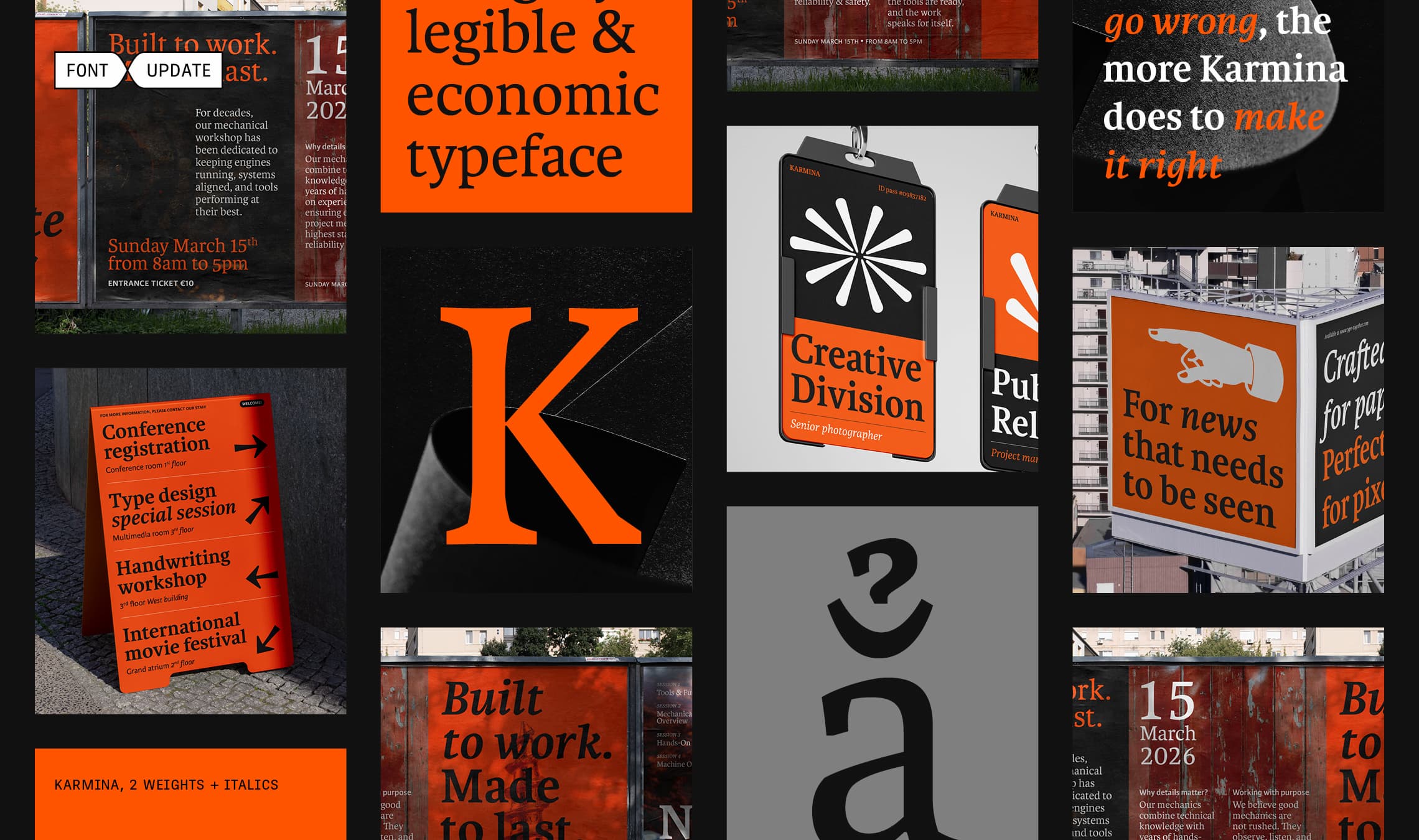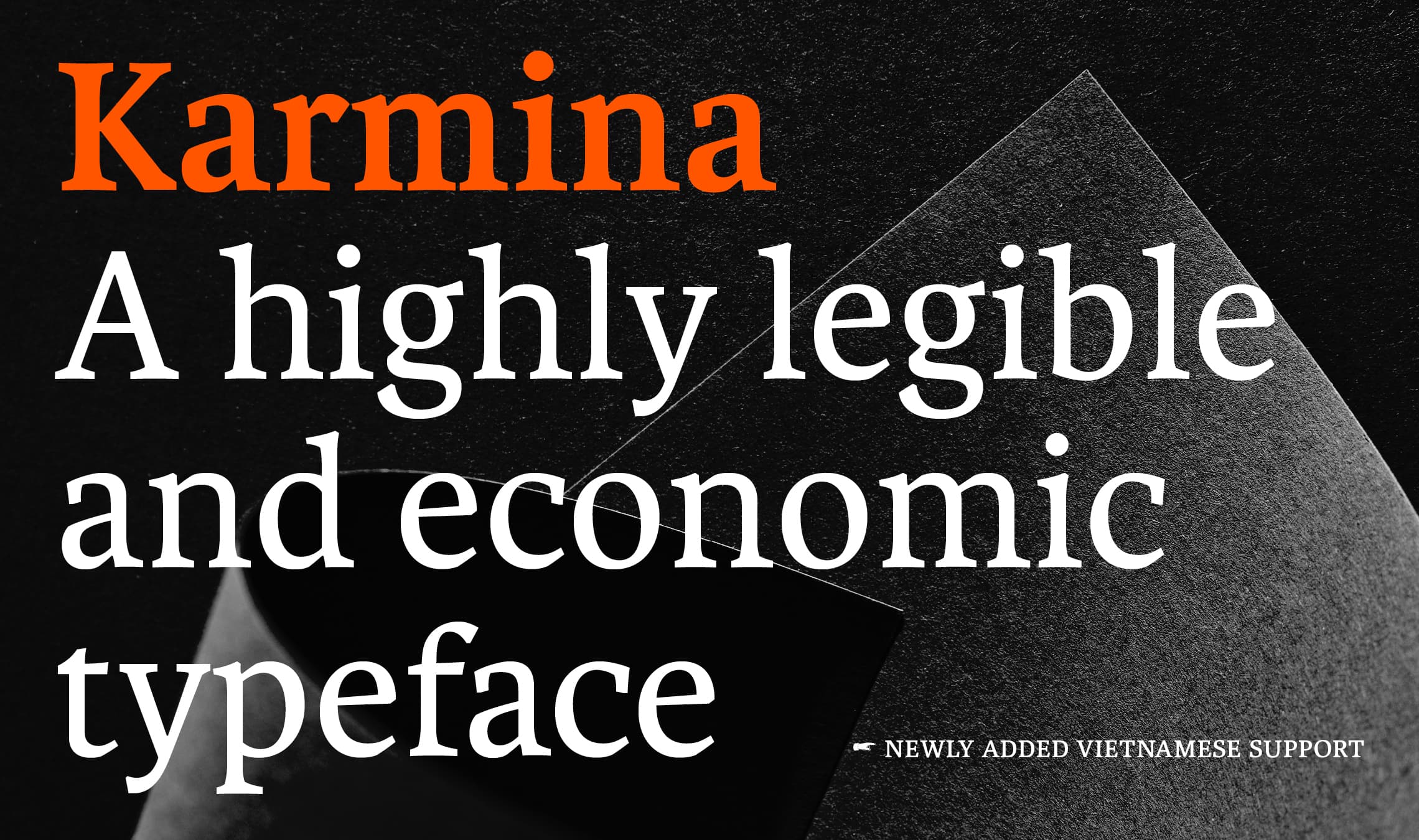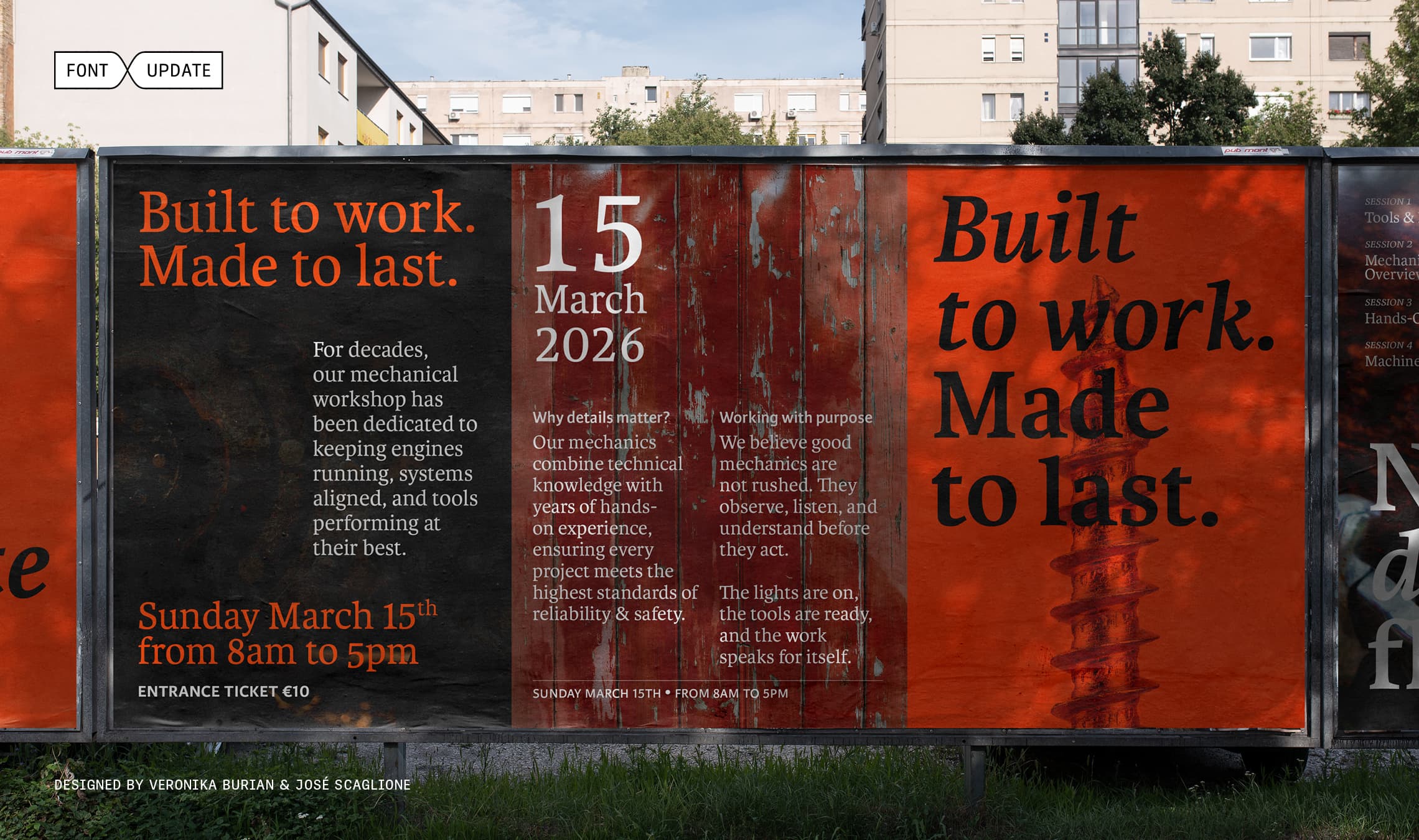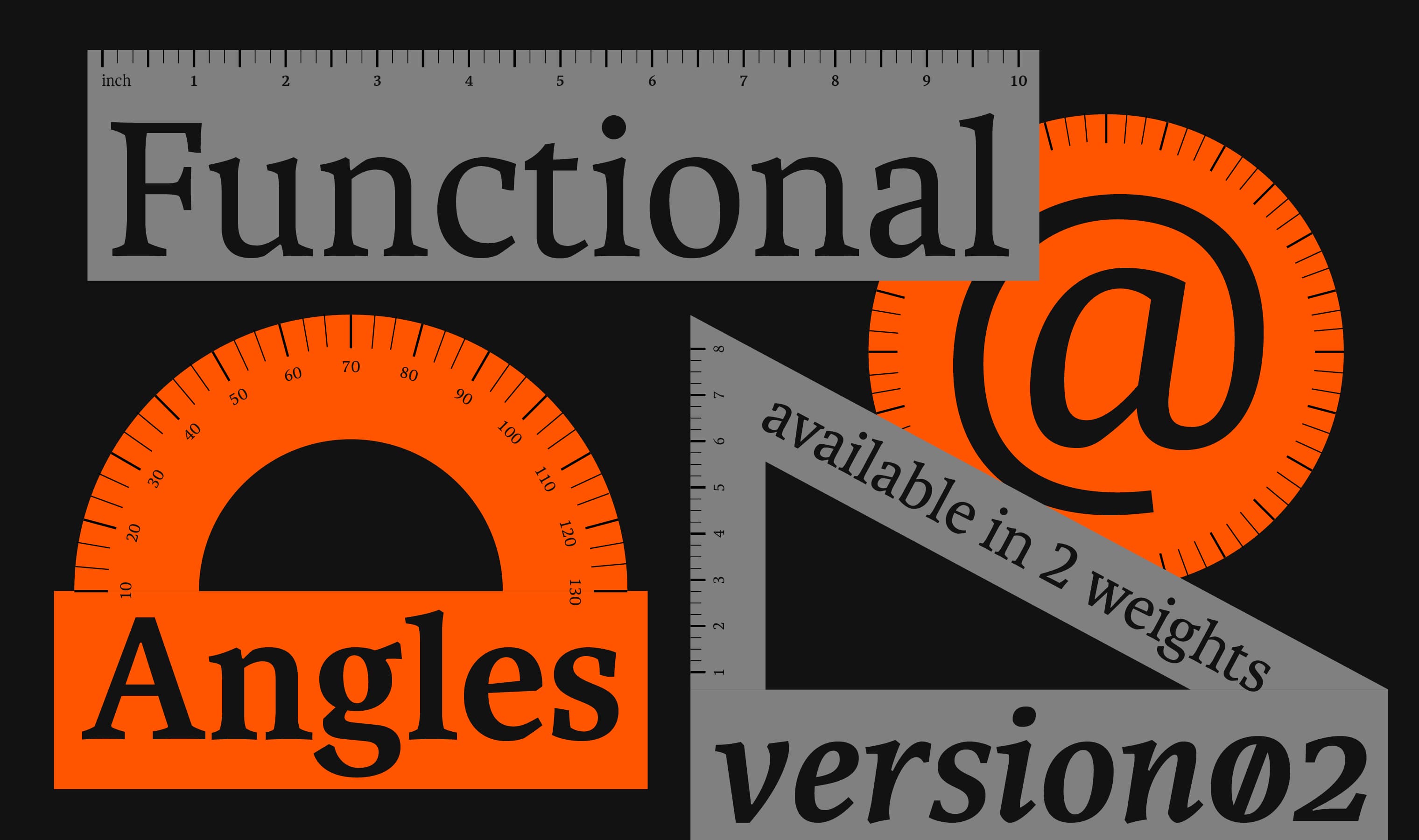
Karmina, fresh for 2026
Since its release in 2007, the Karmina type family has become a trusted partner for a wide range of editorial and branding applications. Now we’ve updated Karmina to bring it into 2026. What’s even better is that it’s free for licence owners.
What’s in the 2026 Karmina update? Numerous improvements, especially lots of new glyphs and full Vietnamese support. It’s part of a larger refresh of several of TypeTogether’s best-loved type families that will continue throughout 2026.
Karmina is a versatile and flexible type family in the best sense of the term, and this update makes it more useful than ever.